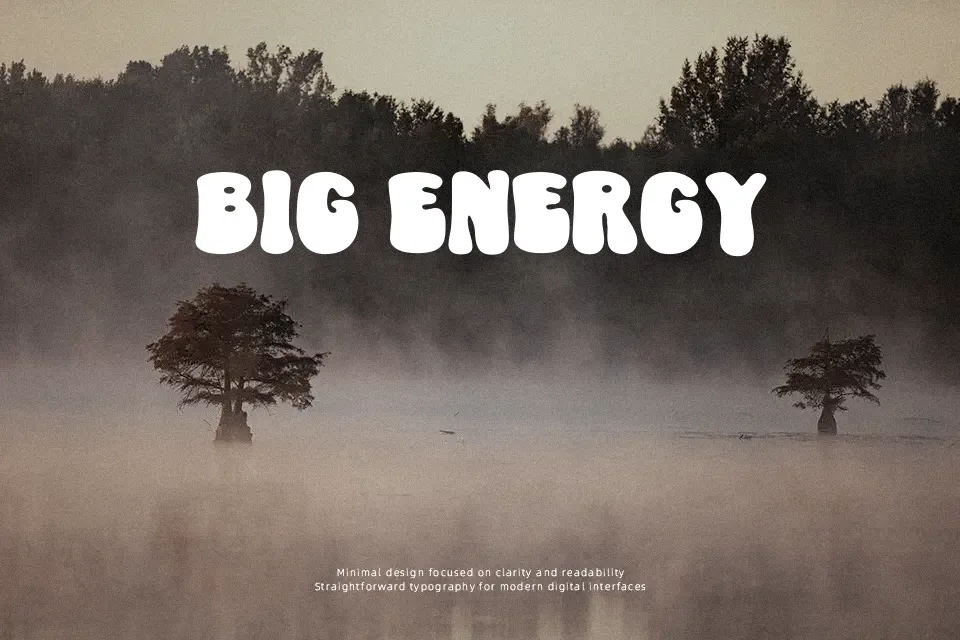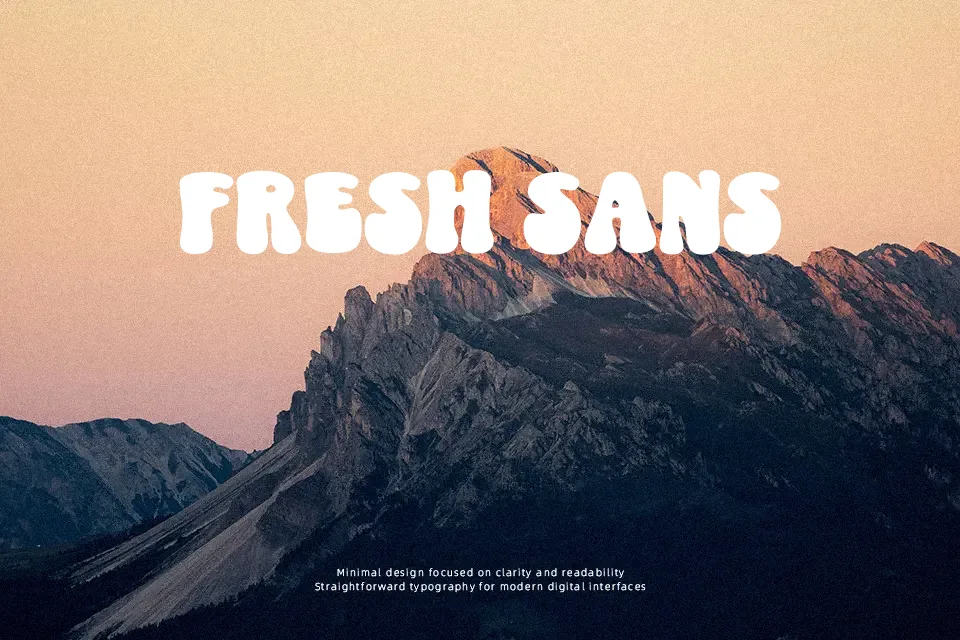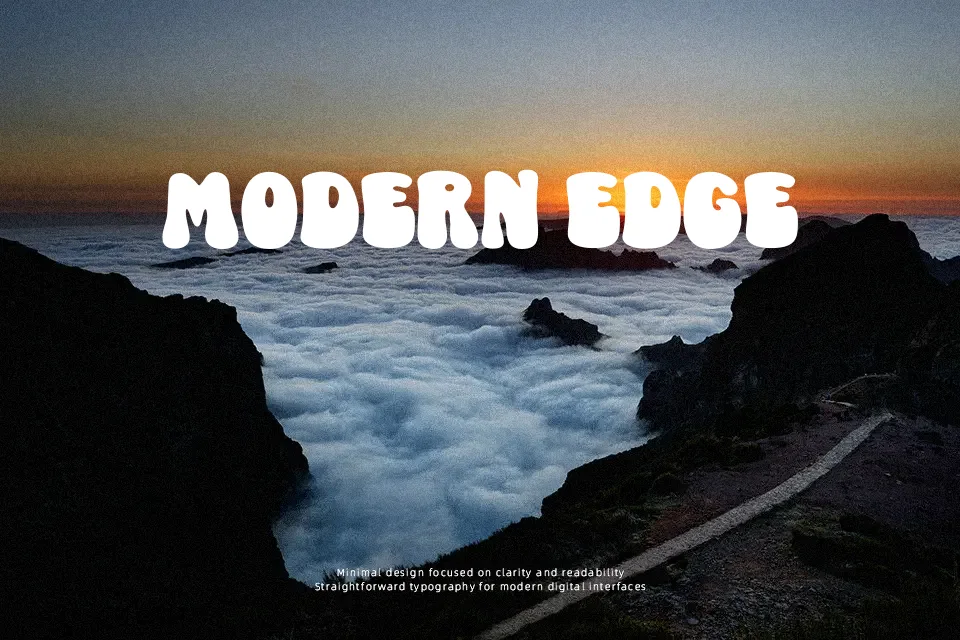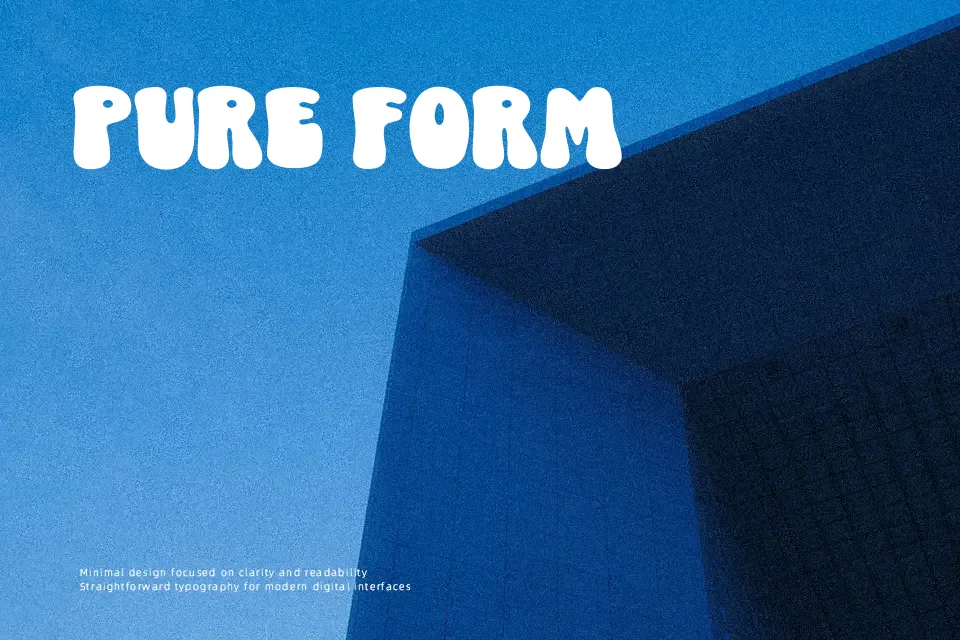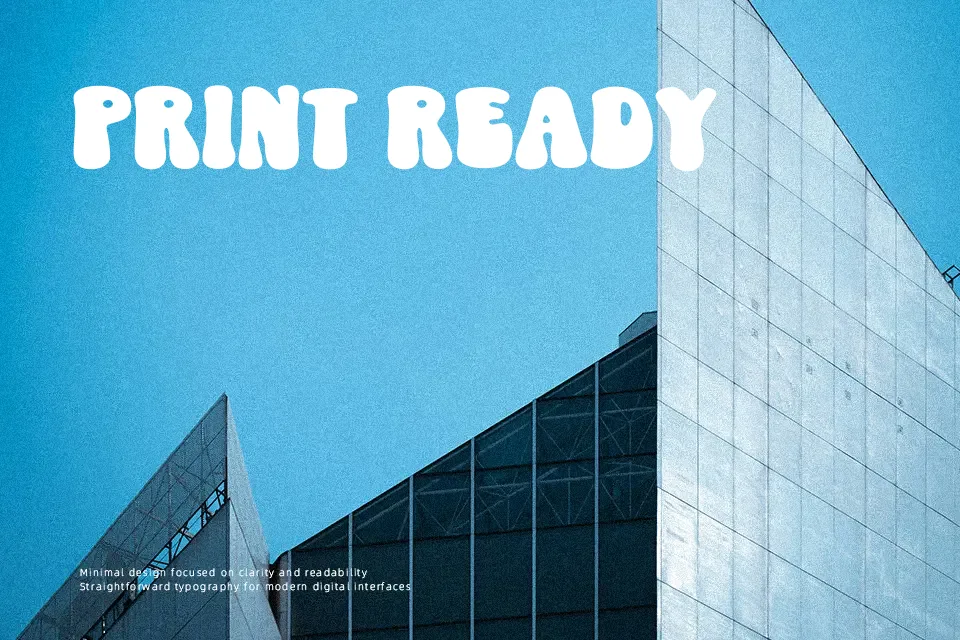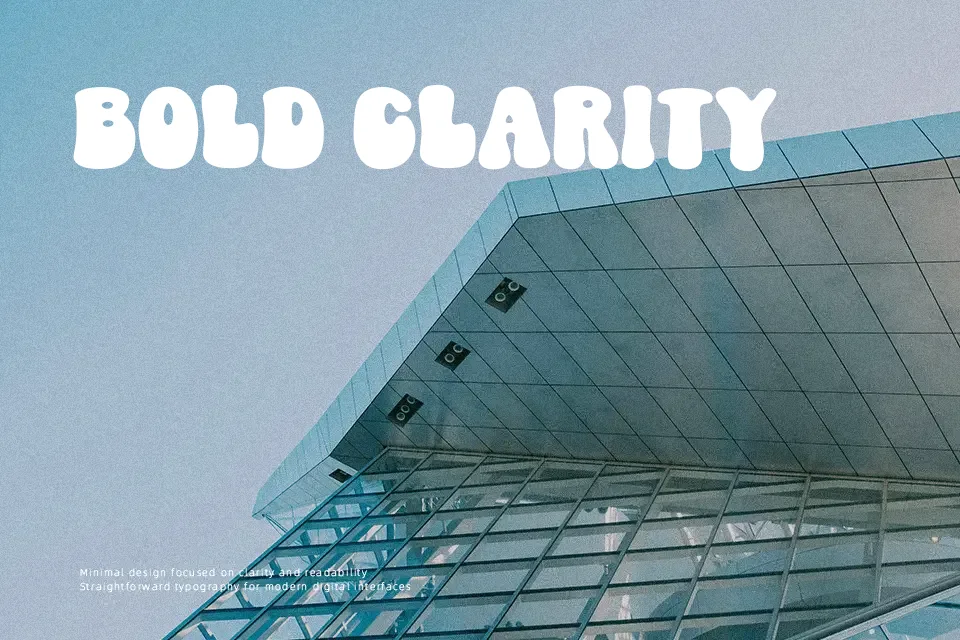
Cinema Groovy Font
Cinema Groovy Font features ultra-bold, inflated strokes with soft bulbous terminals and minimal typographic contrast across its character set. The letterforms sit on a sturdy horizontal baseline with tight character spacing and compact negative space between glyphs. Both uppercase and lowercase characters share uniform vertical proportions, producing a cohesive rhythm across short display compositions. While the dense stroke weight maximizes visual impact in retro event posters and music album covers, narrow interior counters diminish clarity when scaled down. The typeface excels in expressive headline applications, but continuous reading comfort drops significantly across multi-line paragraphs and dense editorial layouts.
Best For: retro event posters,vintage apparel graphics,merchandise packaging,music album covers
Not Ideal For: long paragraph text,dense editorial layouts,small interface labels,technical documentation